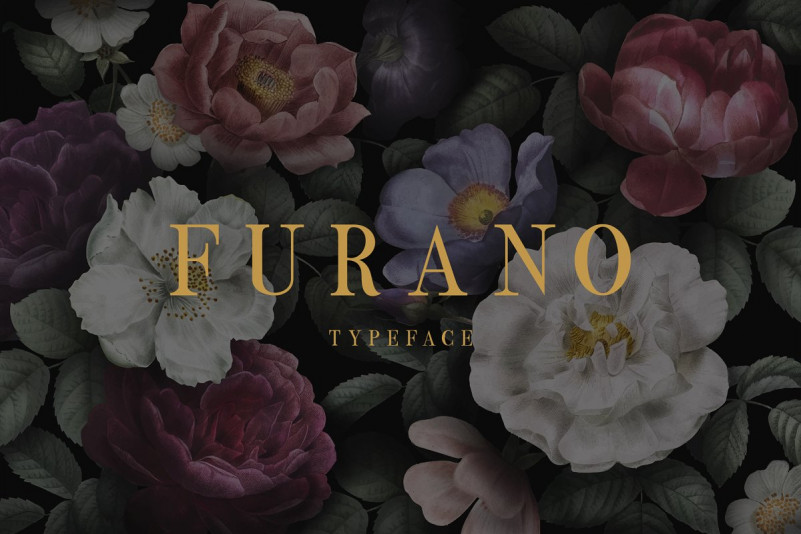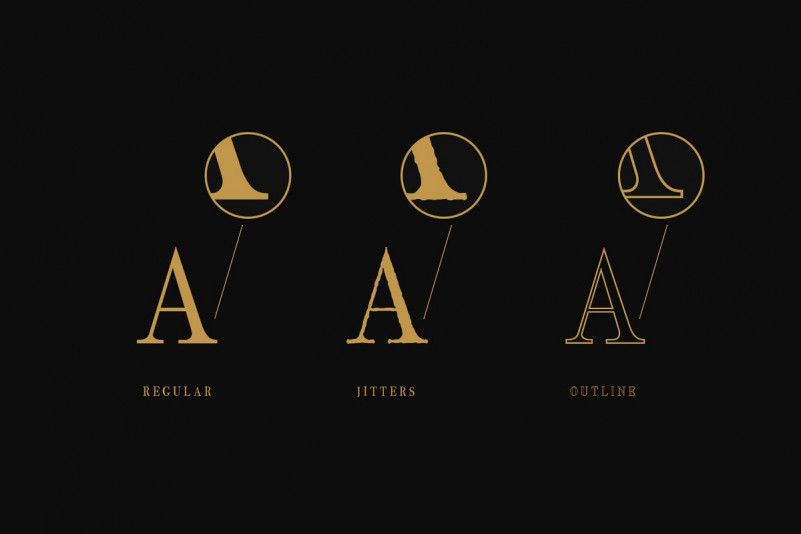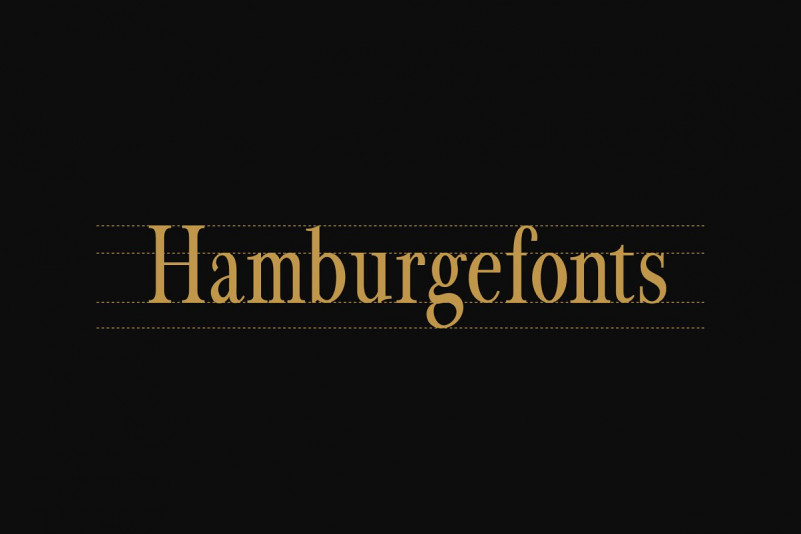
Furano font
Furano font is a serif font that is elegant and simple with a modern vintage style, this font is inspired by a number of font books designed to be used for graphic design needs and others.
This font has 3 styles, namely: regular, jittler, and outline. which has 390 characters, ligature, and multilanguage support. This font can be used for Branding, Logo design, Posters, Cards, etc .